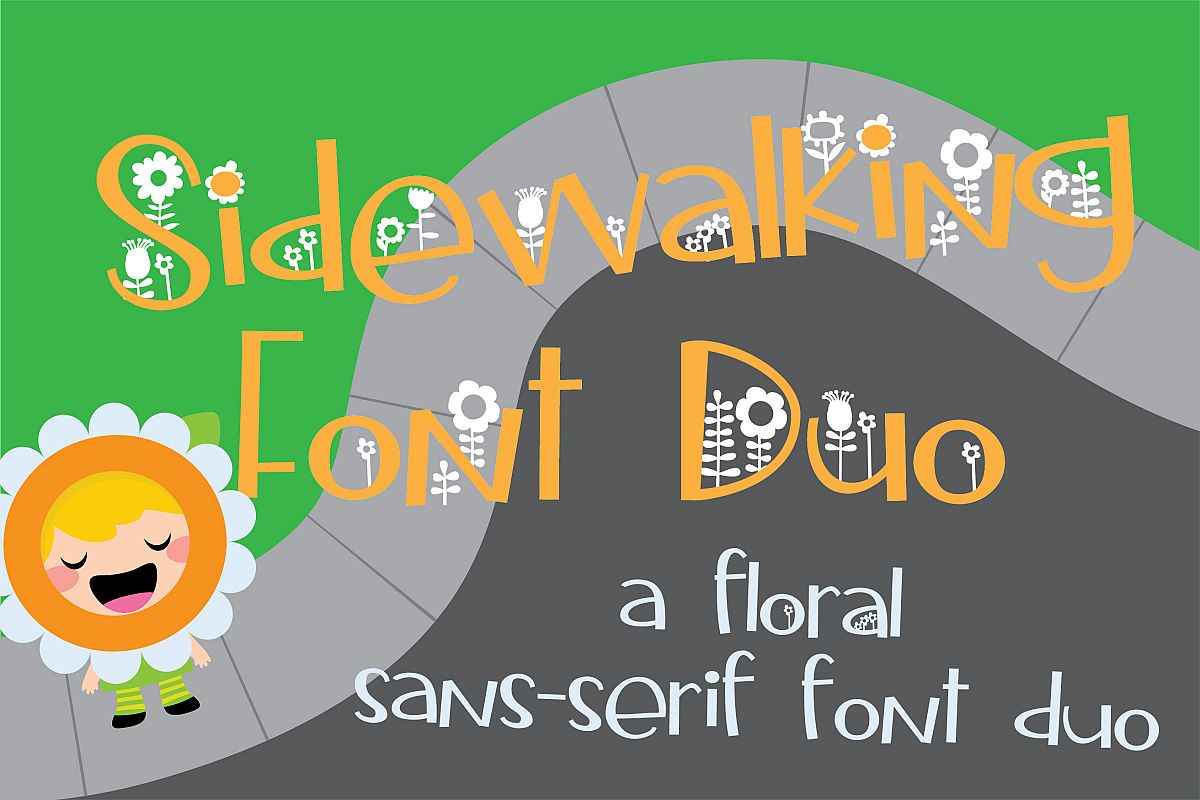
Sidewalking Font Duo
This sans serif font is whimsical and fun and has a second floral version that can be used with it or alone to for a duo-color font.